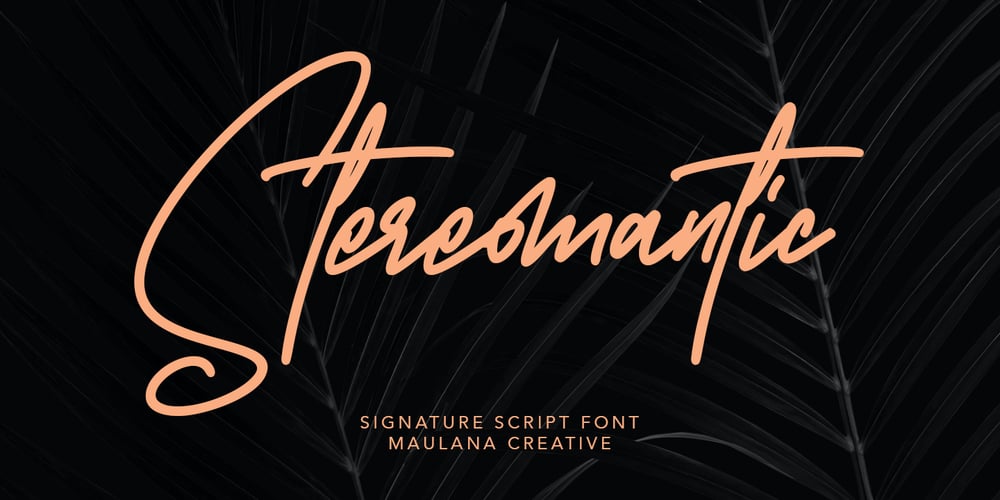
Stereomantic
Stereomantic font
Stereomantic Font Family was designed by Gilang Maulana and published by Maulana Creative. Stereomantic contains 1 styles and family package options. Give your designs an authentic brush handcrafted feel. Stereomantic is perfectly suited to signature, stationery, logo, typography quotes, magazine or book cover, website header, flyer, clothing, branding, packaging design and more.Thanks for use this font.MaulanaCreative